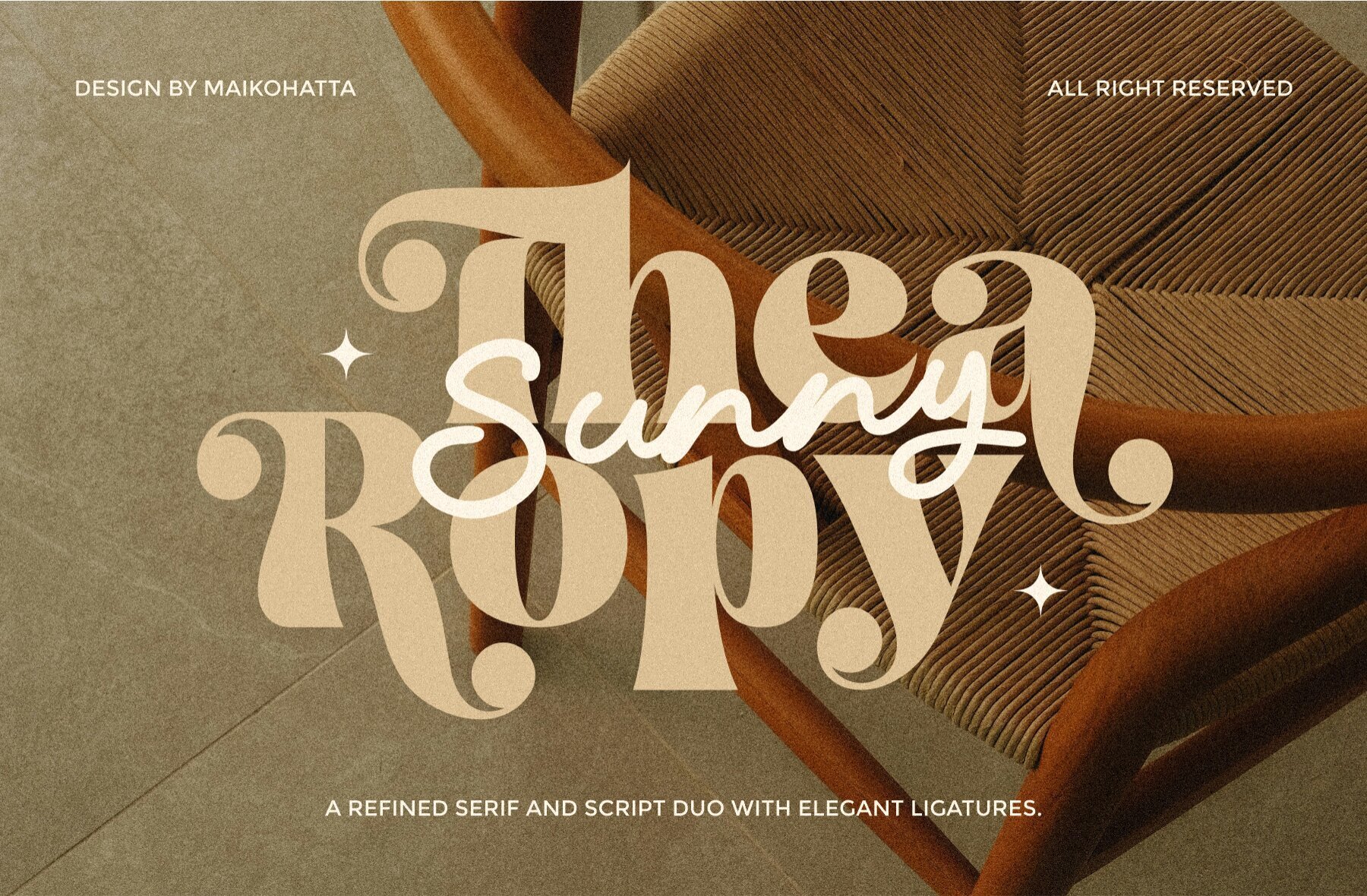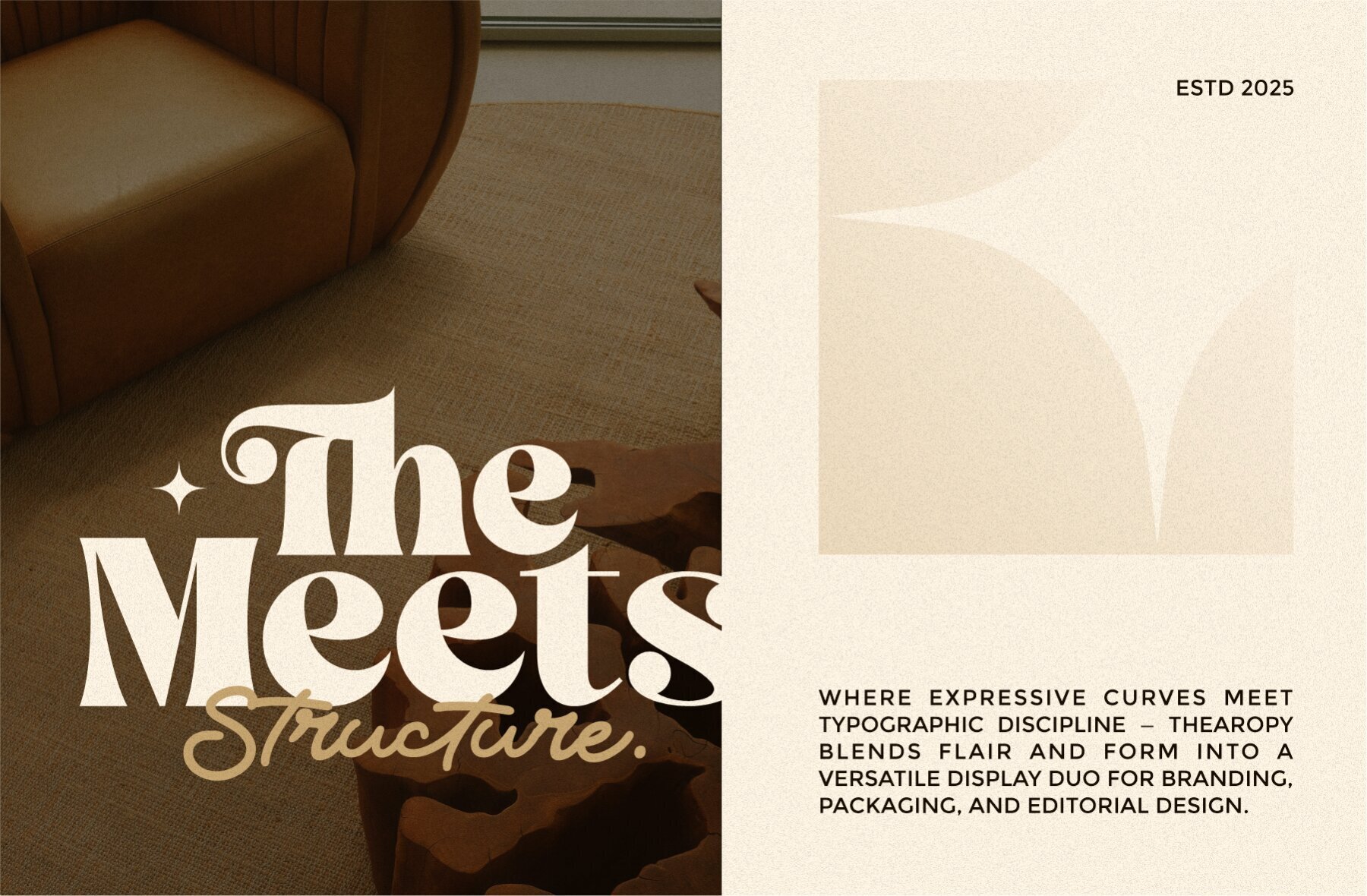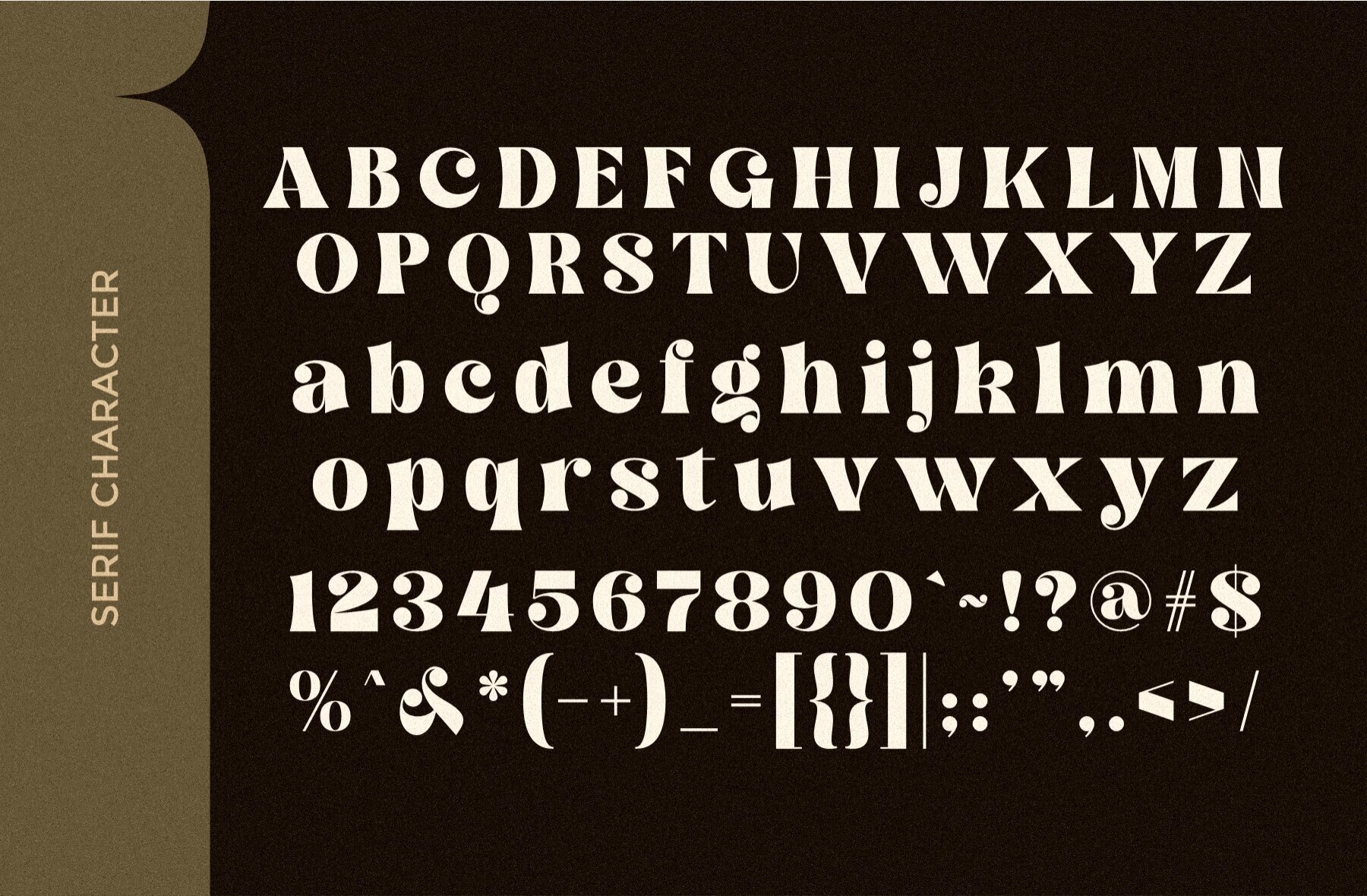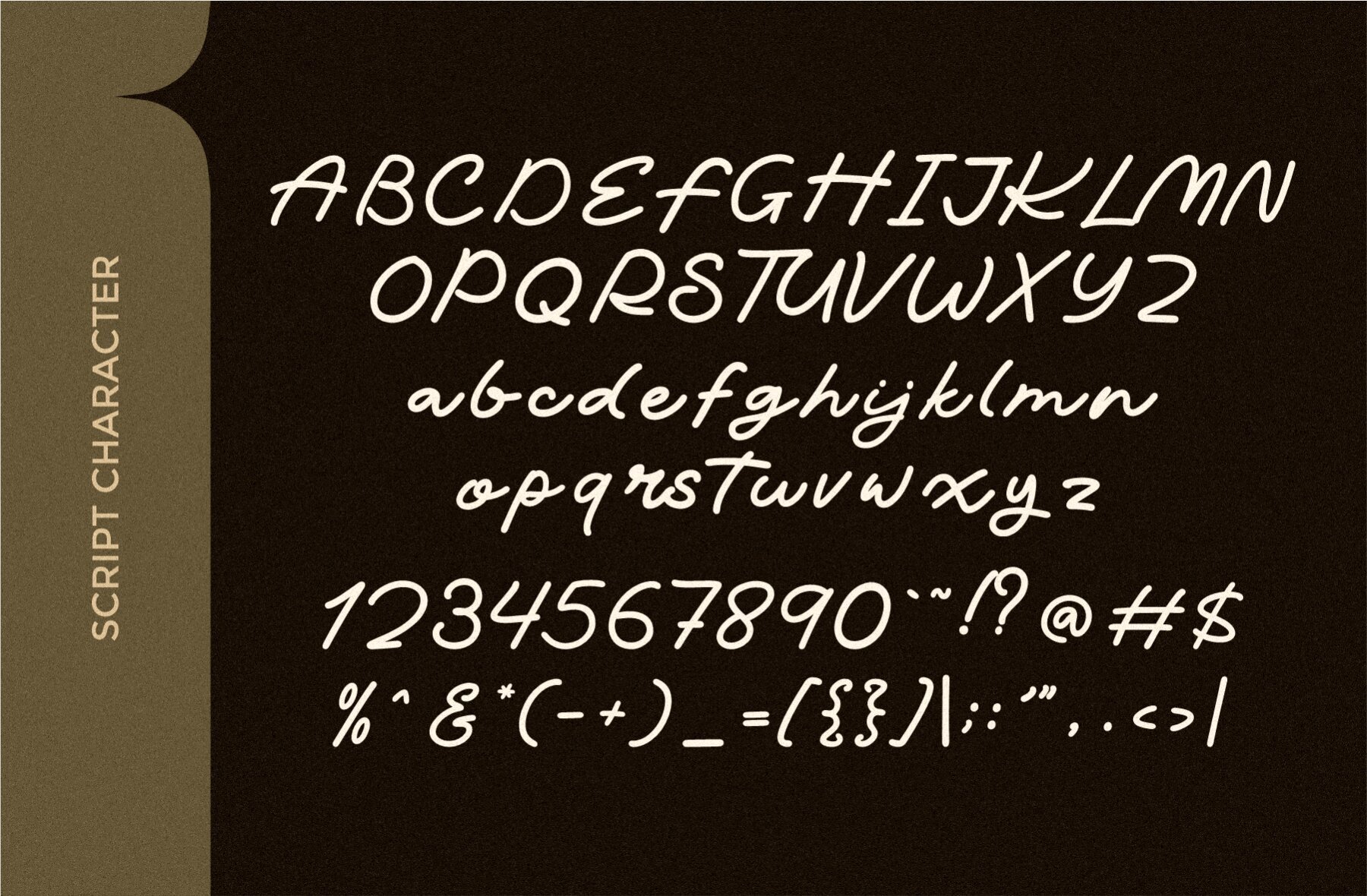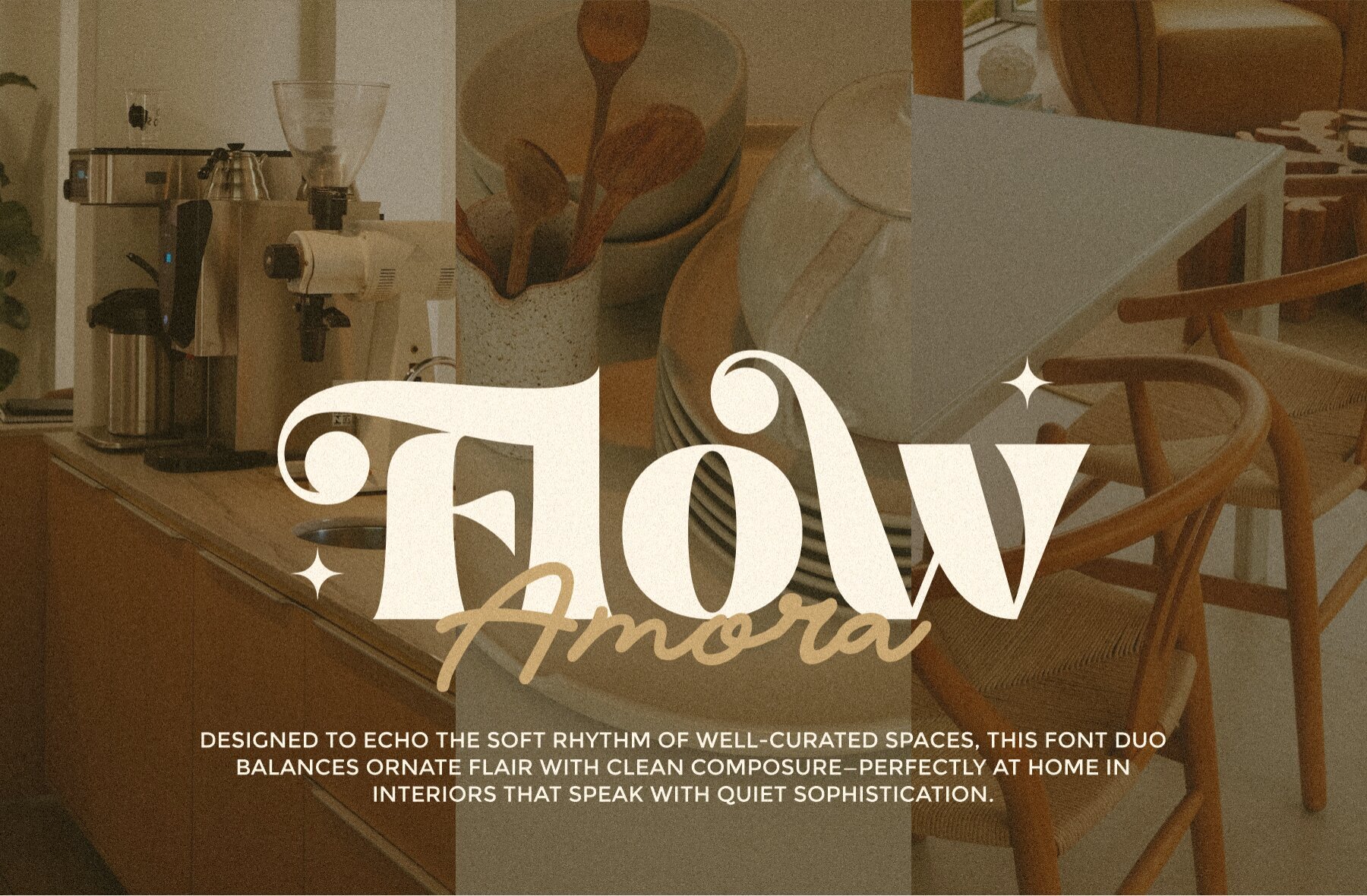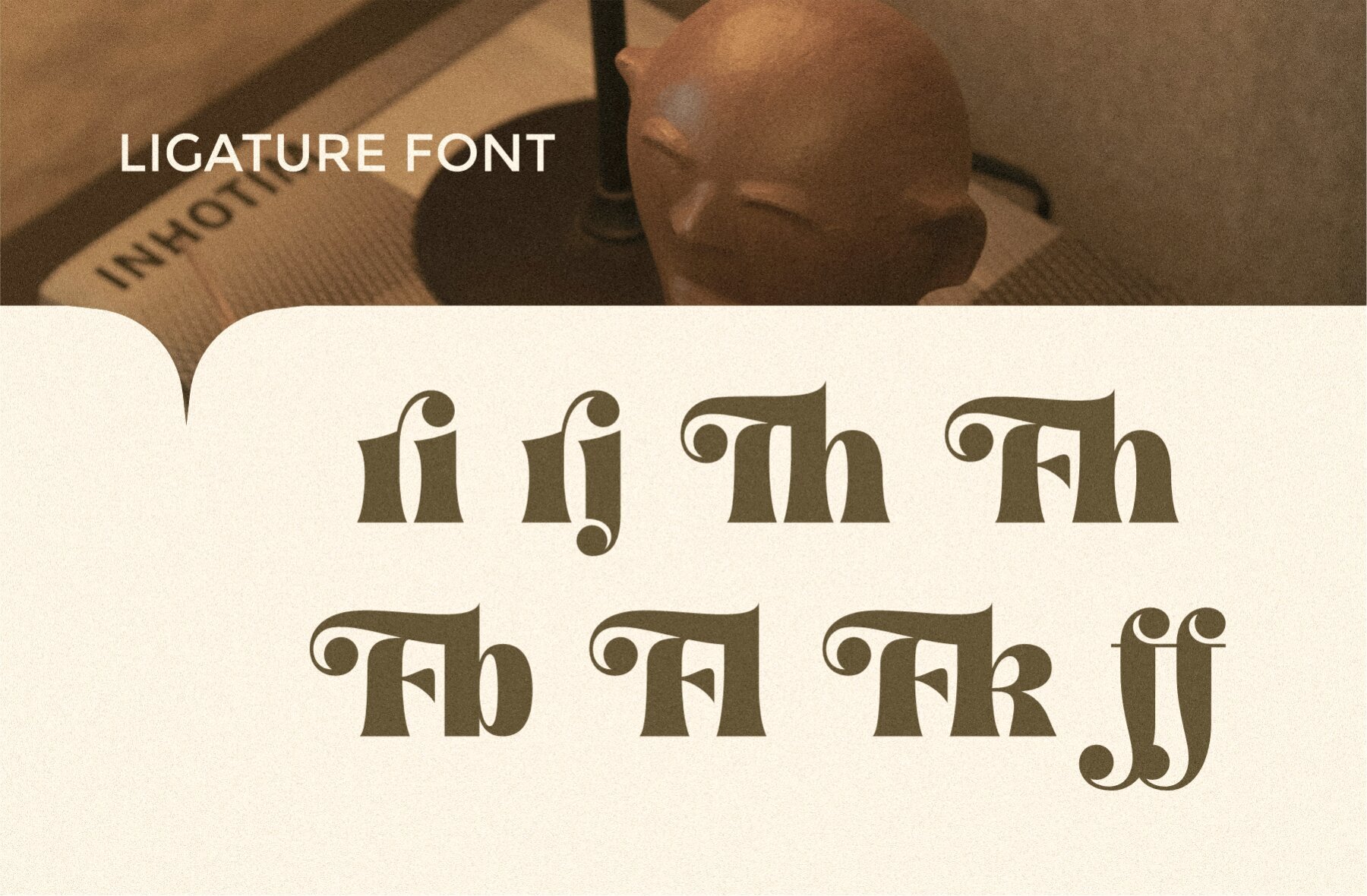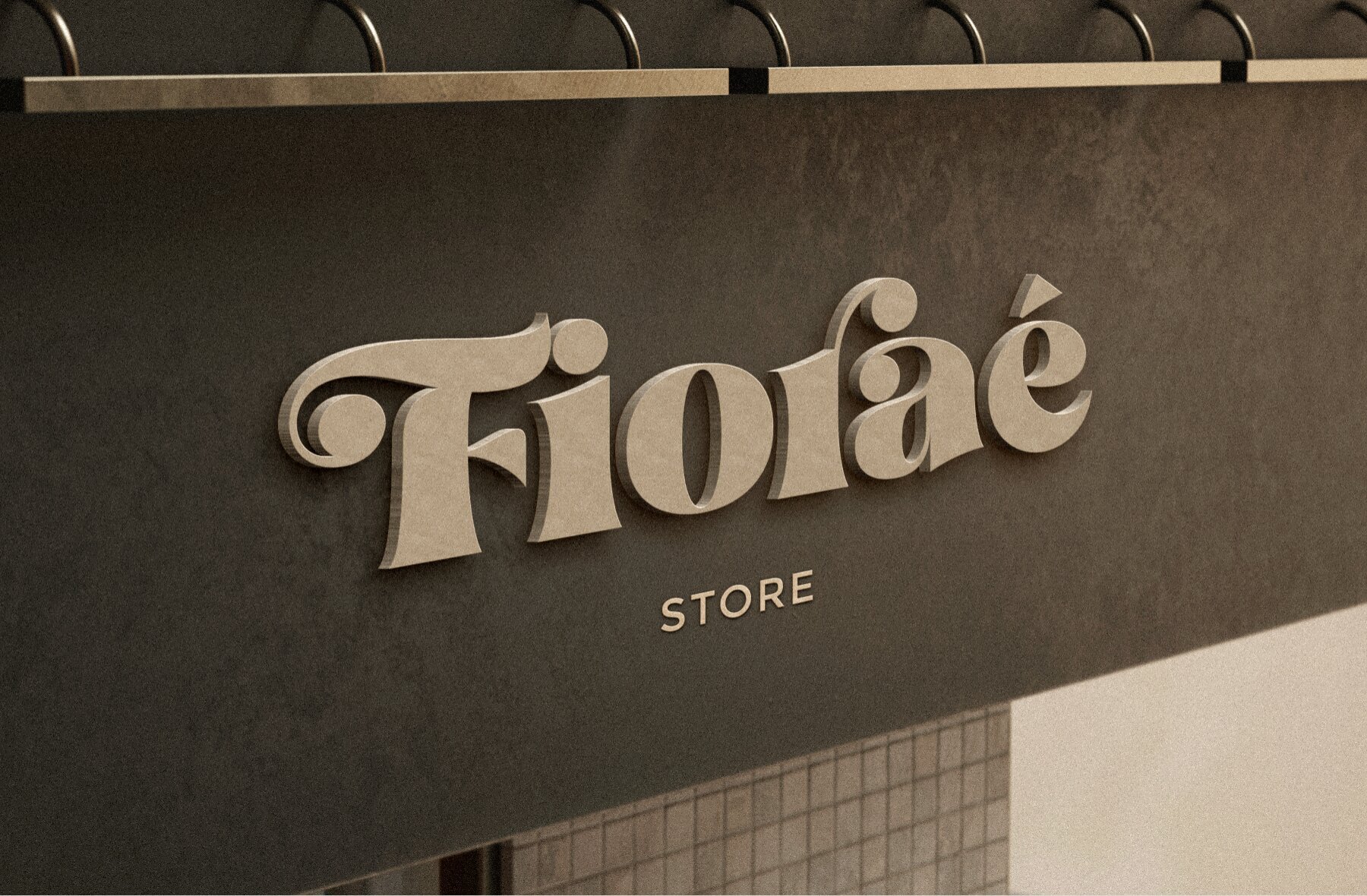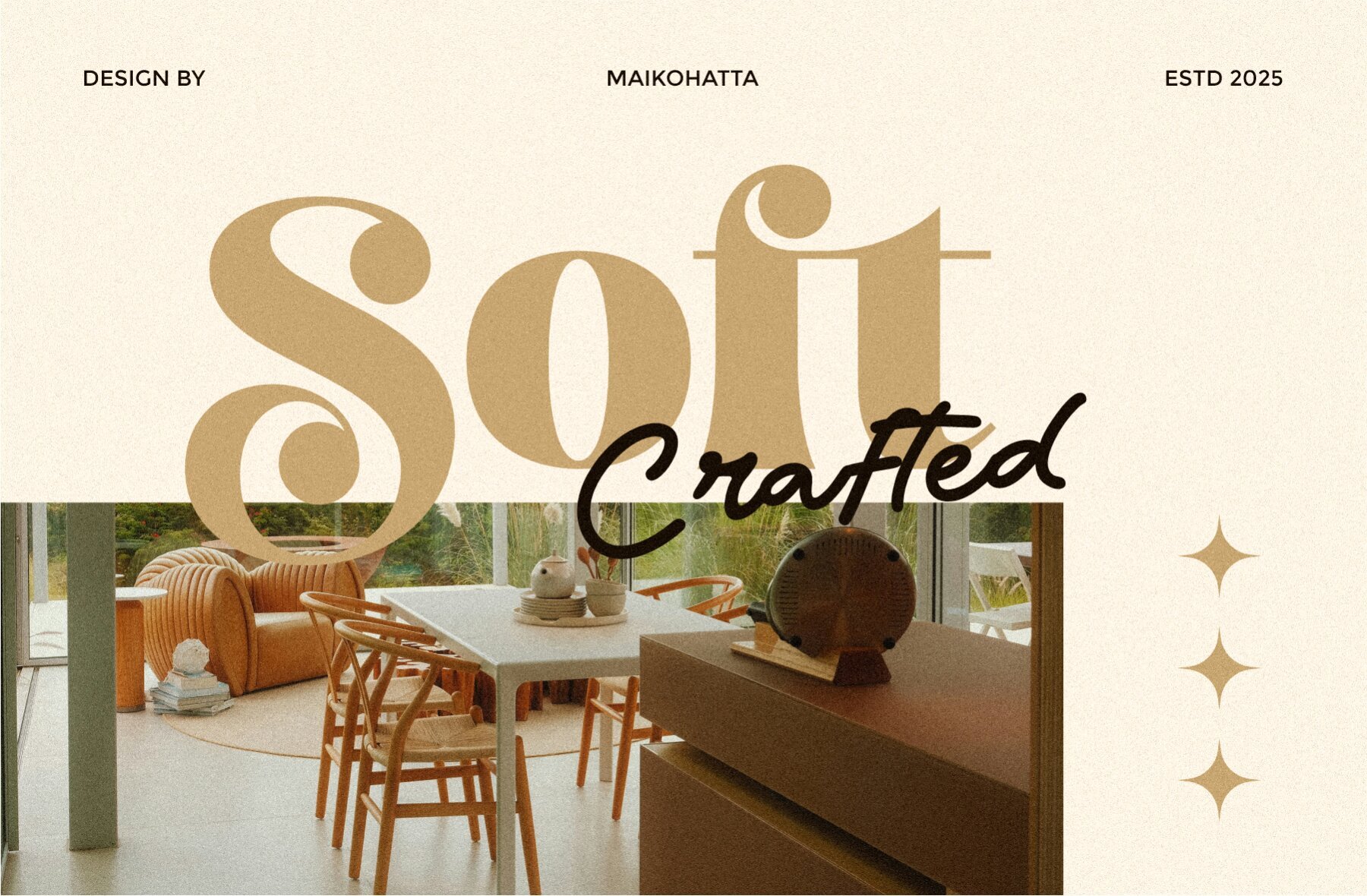
Thearopy Font
Embrace the allure of Thearopy, a sophisticated font duo that effortlessly marries a refined serif typeface with a contemporary, flowing script. Each letter embodies bold, high-contrast forms with delicate flourishes and stylish ligatures, conjuring timeless elegance. The script, with its gentle, hand-lettered appeal, flows seamlessly to infuse warmth and elegance into your designs. Ideal for brand identities, wedding invitations, editorial layouts, and high-end packaging, this duo adapts beautifully to any design setting.Thearopy: Serene Serif and Script Harmony